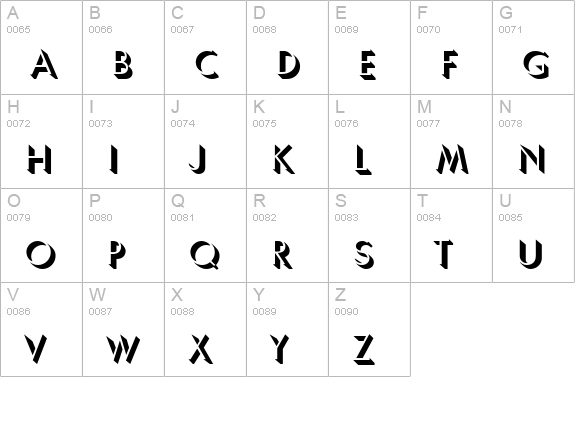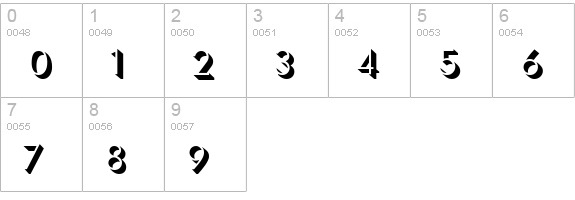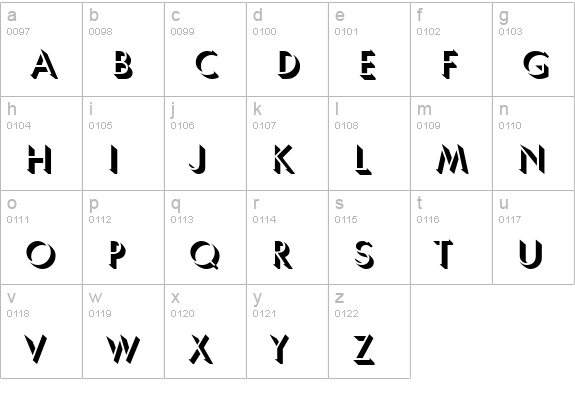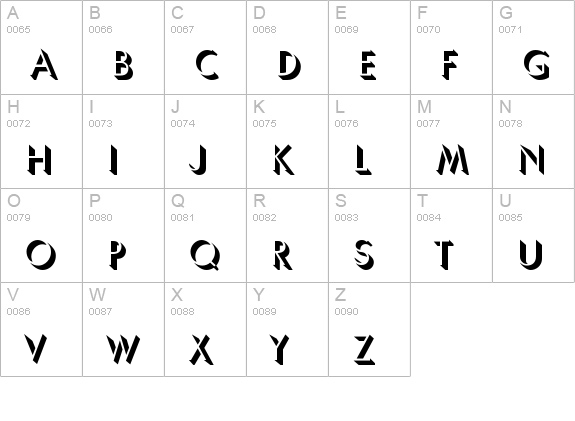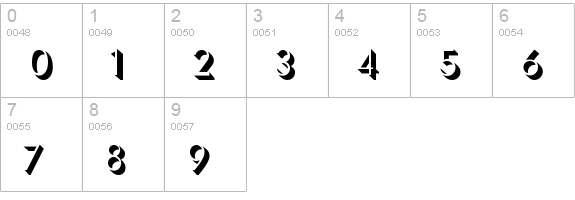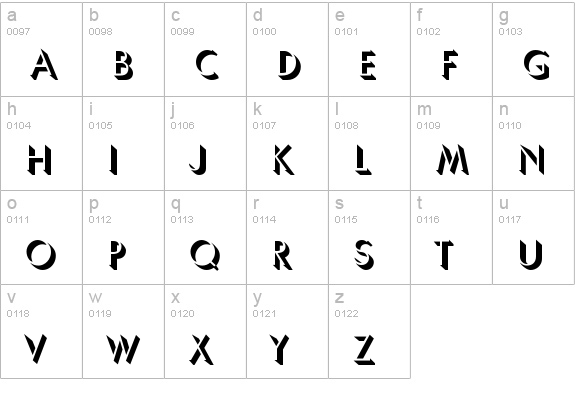
Introducing Shadow SSi, a captivating and versatile font that adds an air of mystery and sophistication to any design project. With its intricately crafted shadow effect, this font exudes a sense of depth and dimension, making it perfect for creating eye-catching headlines, logos, and branding materials. The unique design of Shadow SSi combines bold and elegant letterforms with a subtle shadow effect, creating a striking visual impact. Its carefully balanced proportions and sharp lines make it easy to read, ensuring that your message is conveyed with clarity and style. What sets Shadow SSi apart is not just its stunning aesthetic, but also its accessibility. This font is freely available to download at FontsMarket.com, allowing designers, creatives, and enthusiasts alike to effortlessly incorporate it into their projects. Whether you're designing a website, a poster, or a social media graphic, Shadow SSi is a versatile choice that will elevate your design to new heights. Whether you're aiming for a vintage-inspired look, a modern and sleek style, or something in between, Shadow SSi is a font that can adapt to any creative vision. Its timeless appeal and flexibility make it suitable for a wide range of projects, from fashion and beauty to art and photography. So, why wait? Unleash your creativity and give your designs an extra touch of elegance and intrigue with Shadow SSi. Download this captivating font for free at FontsMarket.com and let it transform your next project into a true masterpiece.